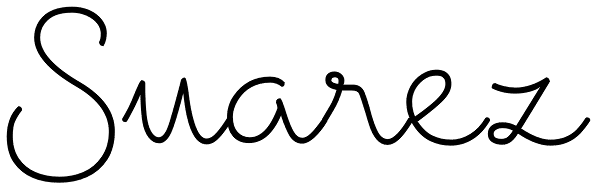
Suarez
Suarez is a handwritten, fully connected script with ligatures to help with flow and readability. It can be used for invitations, greeting cards, posters, advertising, weddings, books, menus etc. Language support includes Western, Central and...
Suarez Extra
Suarez Alt